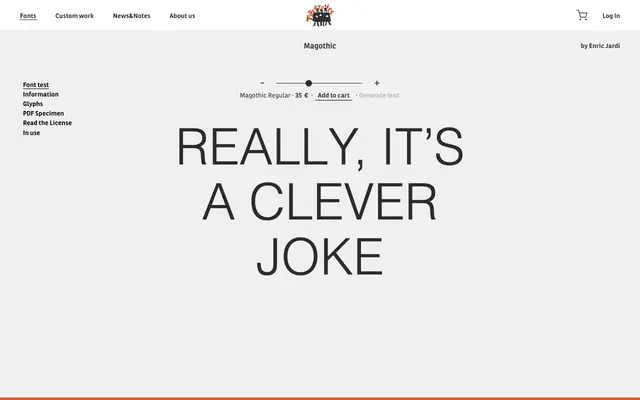
Magothic
Type-ø-tones · Enric Jardí
A single-weight display face by Enric Jardí, described by the foundry as 'a clever joke'.
Magothic is a display typeface from Type-ø-tones designed by Enric Jardí. Available in a single Regular weight, it is positioned as a playful or conceptual piece rather than a workhorse family. The foundry's own description — 'really, it's a clever joke' — signals an irreverent intent typical of Type-ø-tones' experimental output.
The name 'Magothic' and the single-weight display offering suggest a stylised gothic-adjacent or novelty sans with a distinctive character, positioned as display rather than text use.